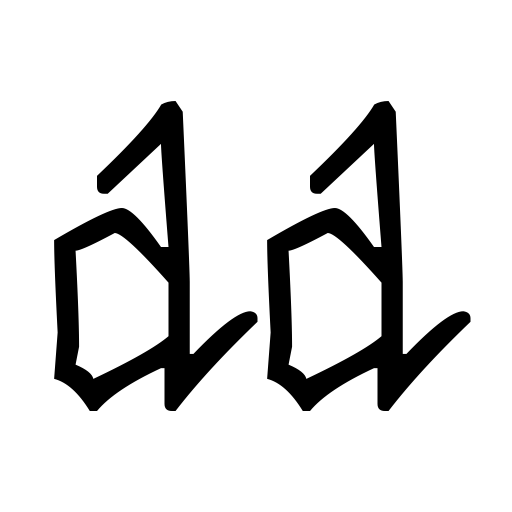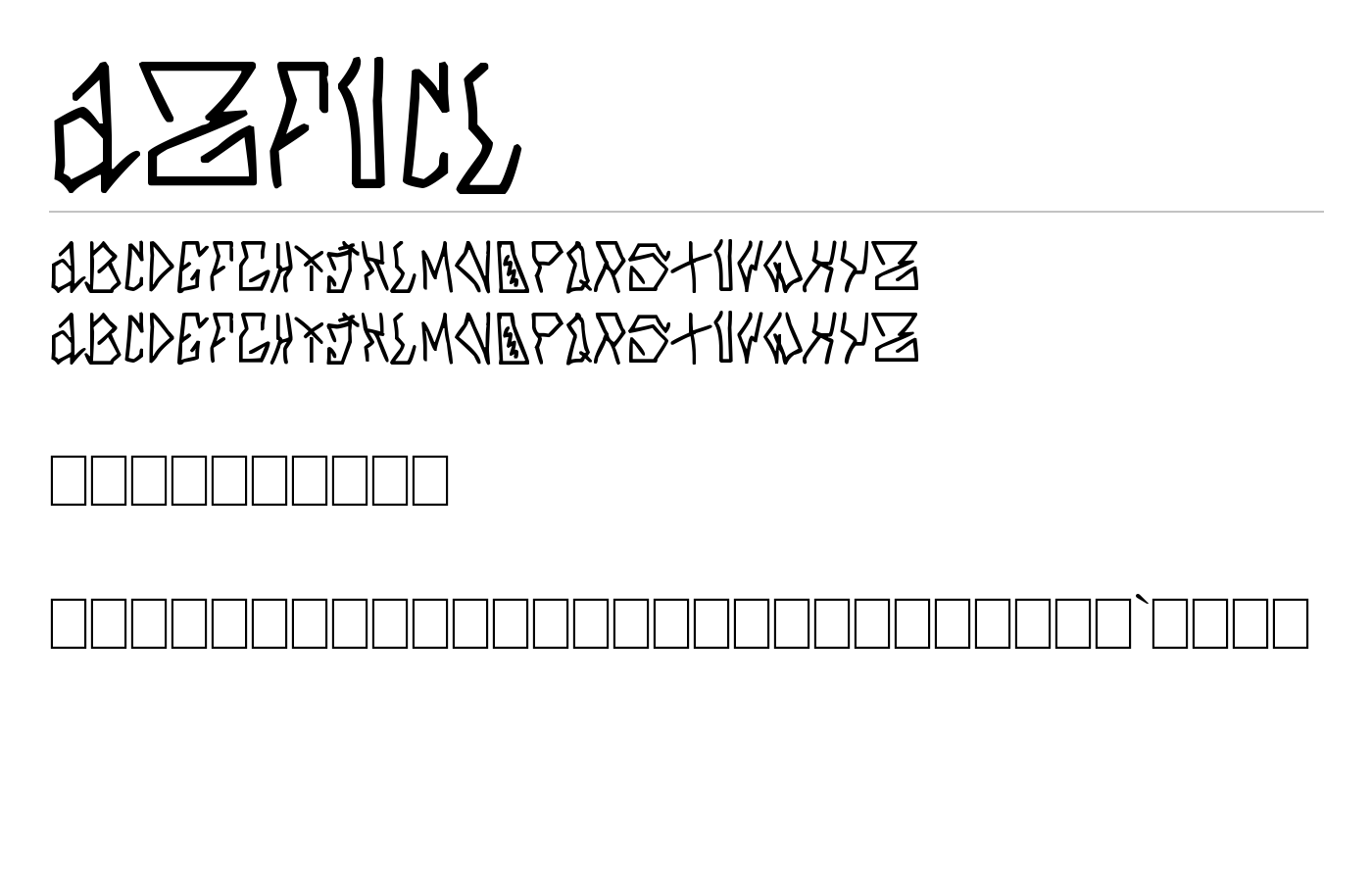
Azfucl is a highly distinctive, decorative sans serif font with an angular, geometric style that leans towards a playful yet edgy personality. Its irregular, sharp letterforms display a hand-drawn, almost tribal aesthetic, making it ideal for eye-catching headlines, logos, or creative projects that seek an unconventional and artsy vibe. This font works best in display settings where its unique character can be appreciated, rather than for body text, due to its complex shapes and tight spacing.
azfucl Font
About azfucl Font